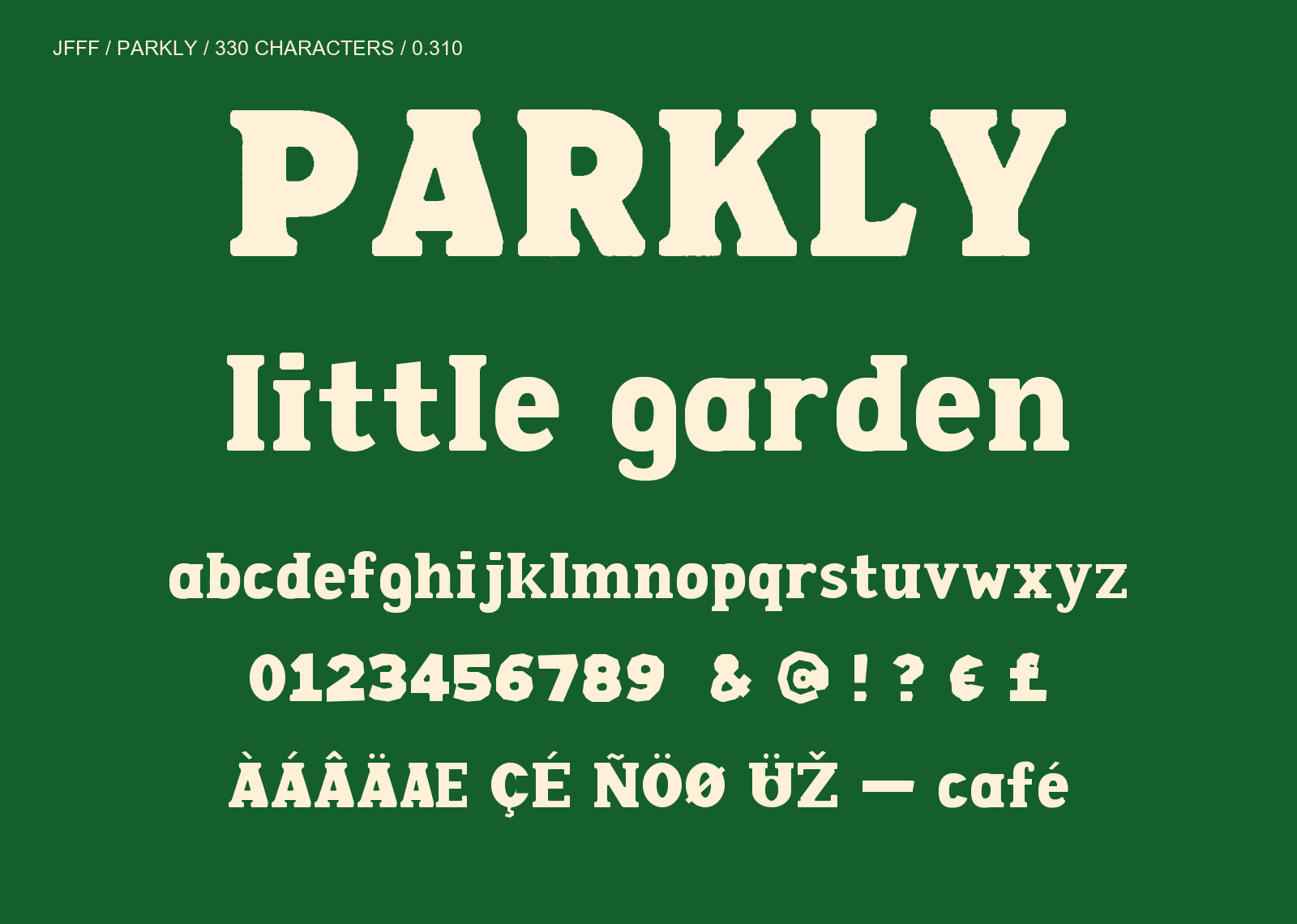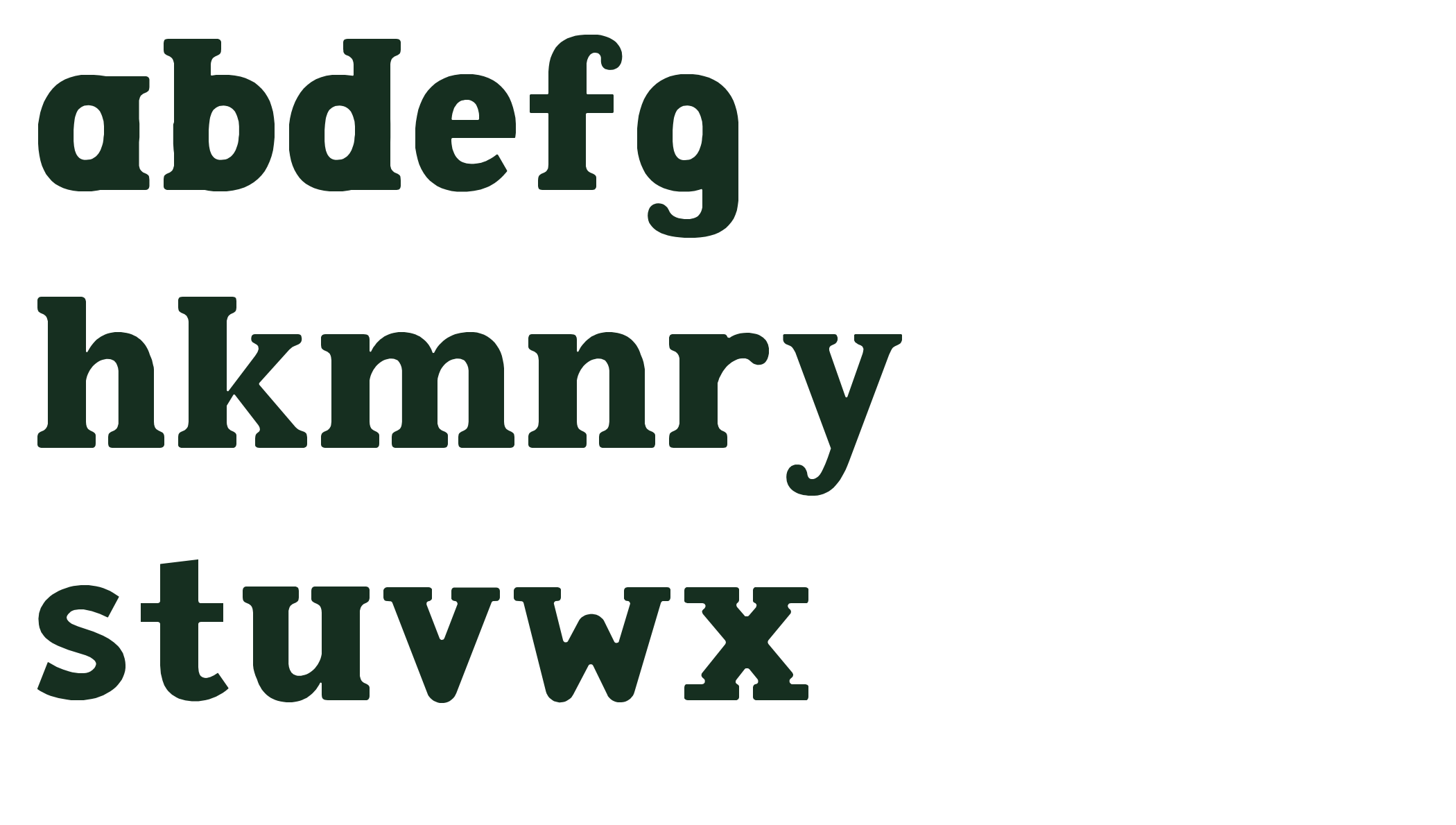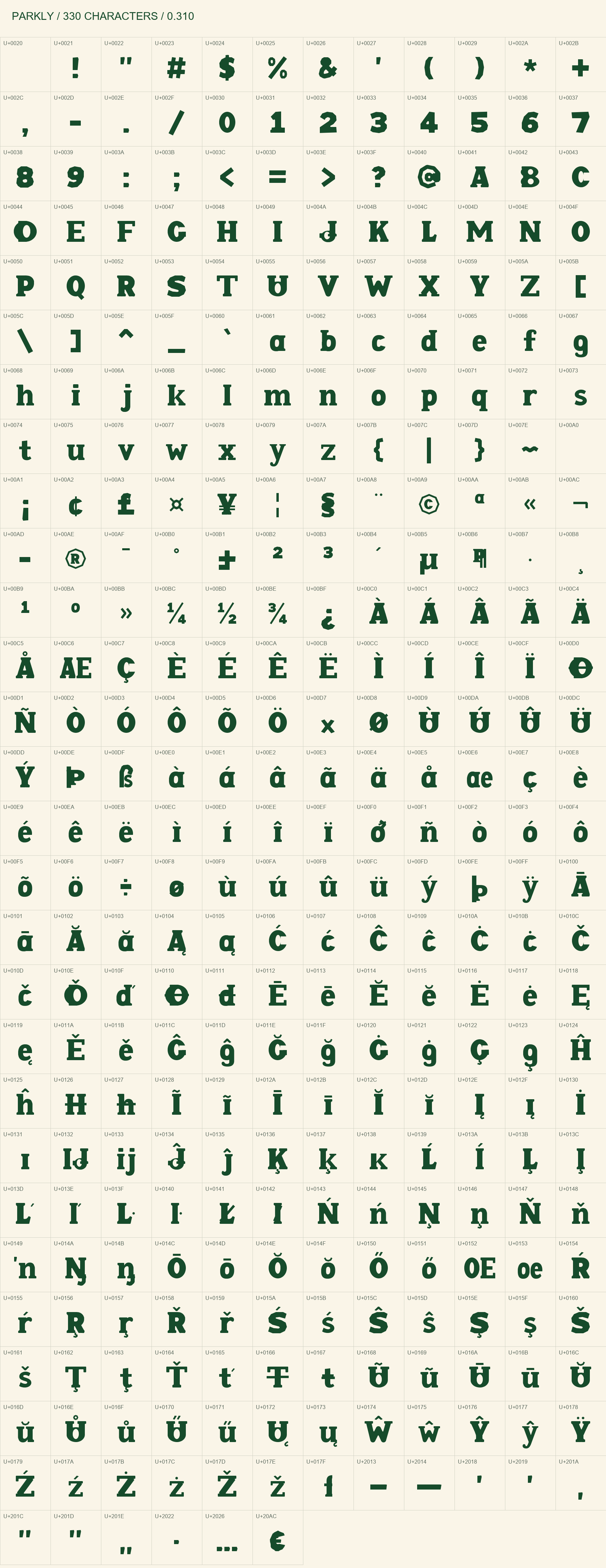
PARKLY rounded slab-serif display font: PARKLY, little garden.
Soft curves. Bold presence. PARKLY is a heavy slab-serif display font with compact counters, rounded corners and gently bracketed serifs. Its cleaned lowercase joins and continuous curves bring a warm, retro character to packaging, posters and short headlines. Version 0.310 design preview: 330 encoded characters and 331 glyphs, covering printable Basic Latin, Latin-1, Latin Extended-A and 11 additional punctuation characters. Start at 48 pt or 64 px with kerning enabled. Download includes TTF and SIL OFL 1.1. Precomposed Latin accents are supported; Hangul and independent combining marks are not included. Native editing-app installation and print workflows have not been verified.